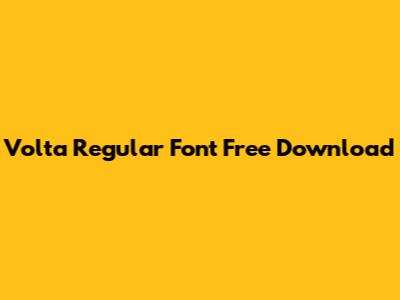
Volta Regular Font: Free Download & Usage Guide
What is Volta Regular Font?
Before we get into the nitty-gritty of downloading, let’s understand what makes the Volta Regular font so special. This font is known for its clean, modern design, making it a versatile choice for a wide range of applications. Whether you’re working on a branding project, designing a website, or creating marketing materials, Volta Regular can add a touch of sophistication and readability.
Volta Regular is characterized by its balanced letterforms and consistent stroke weight. It strikes a perfect balance between elegance and functionality, making it suitable for both headlines and body text. The font's clarity ensures that your message is conveyed effectively, regardless of the medium. Its neutral yet stylish appearance allows it to blend seamlessly with various design aesthetics, enhancing the overall visual appeal of your projects.
The font's design incorporates subtle details that contribute to its unique character. The slightly rounded terminals and carefully crafted curves give it a soft, approachable feel, while its precise lines and geometric structure maintain a sense of professionalism. This combination of attributes makes Volta Regular a go-to choice for designers looking to create designs that are both visually appealing and easy to read. Moreover, its extensive character set supports a wide range of languages, making it a versatile option for international projects. Whether you’re designing a website, creating marketing materials, or working on a branding project, Volta Regular can help you achieve a polished and professional look. Its adaptability and timeless design ensure that it remains a relevant and valuable asset in your font library for years to come.
Key Features of Volta Regular
• Readability: Designed for optimal readability in both print and digital formats.
• Versatility: Suitable for headlines, body text, and various design applications.
• Modern Design: Clean and contemporary aesthetic that fits a wide range of projects.
• Balanced Letterforms: Consistent stroke weight and balanced letterforms for a professional look.
• Extensive Character Set: Supports a wide range of languages and symbols.
• Readability: Designed for optimal readability, ensuring your message is conveyed effectively.
• Modern Aesthetic: Its clean and contemporary design keeps your projects looking fresh and up-to-date.